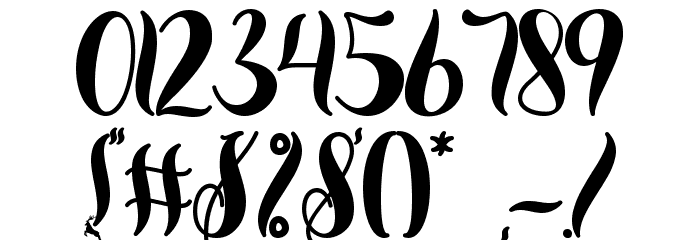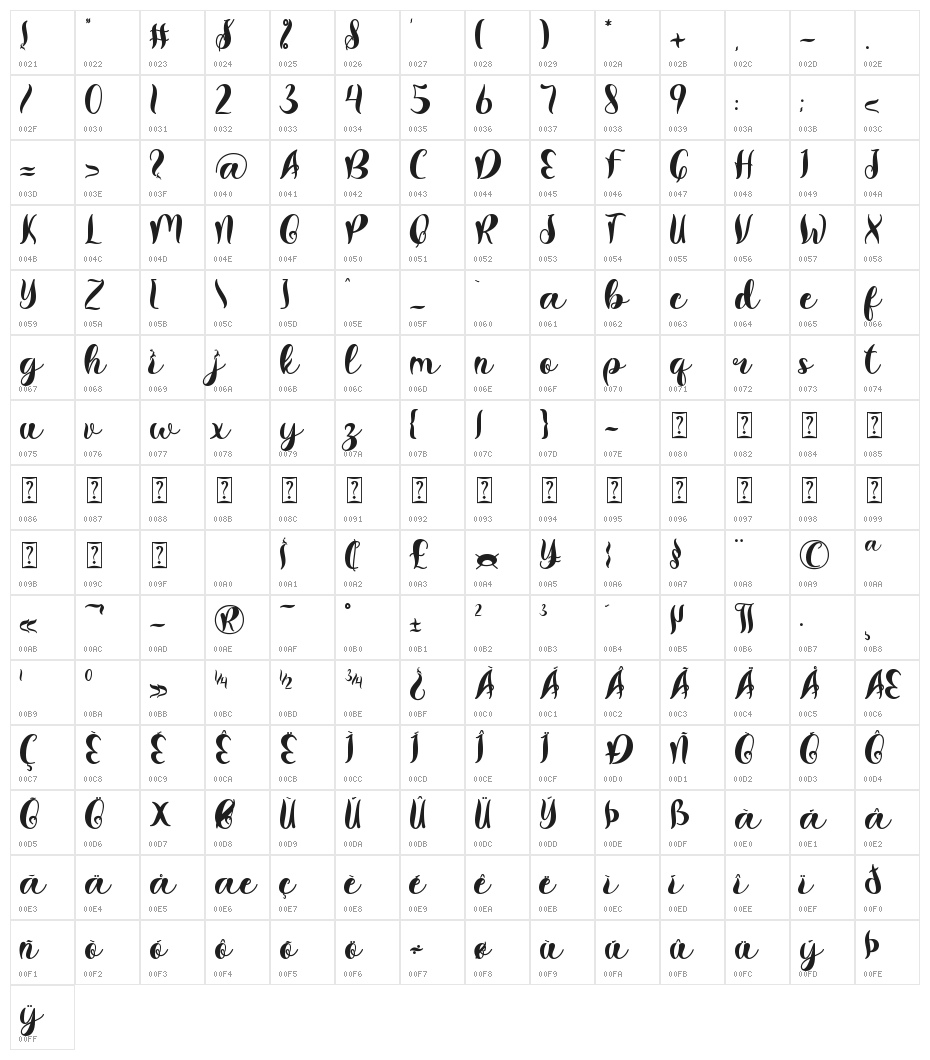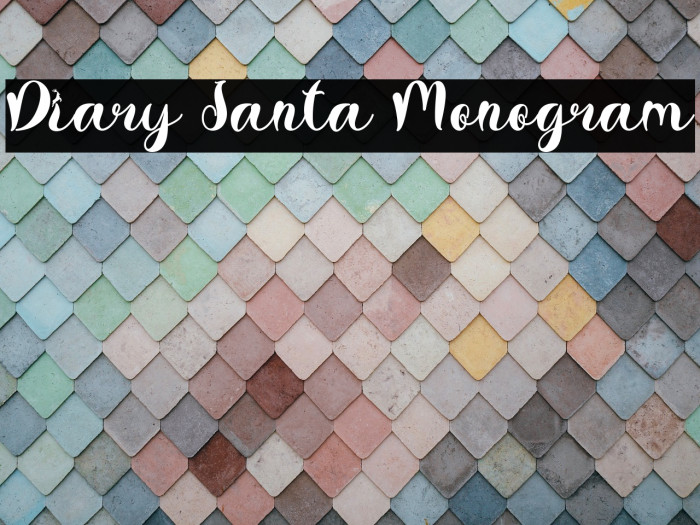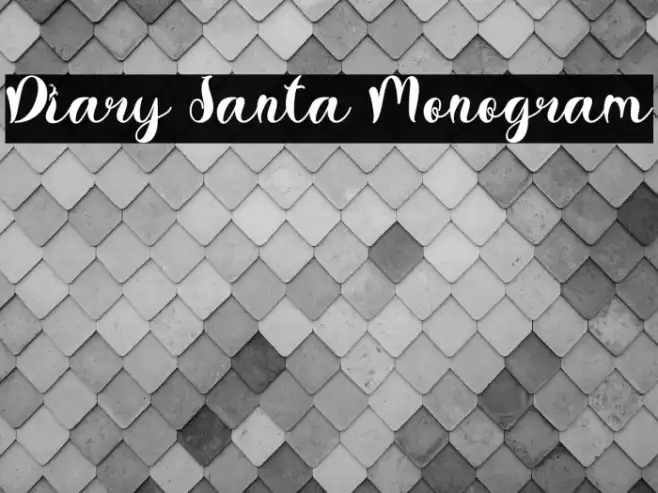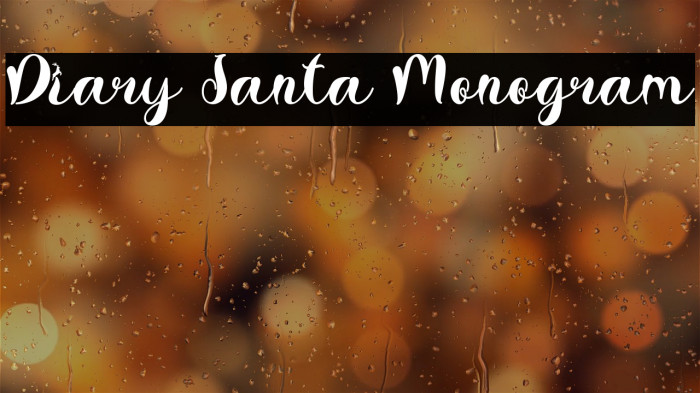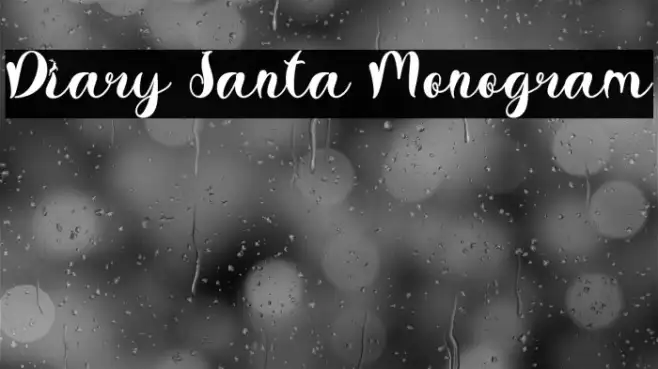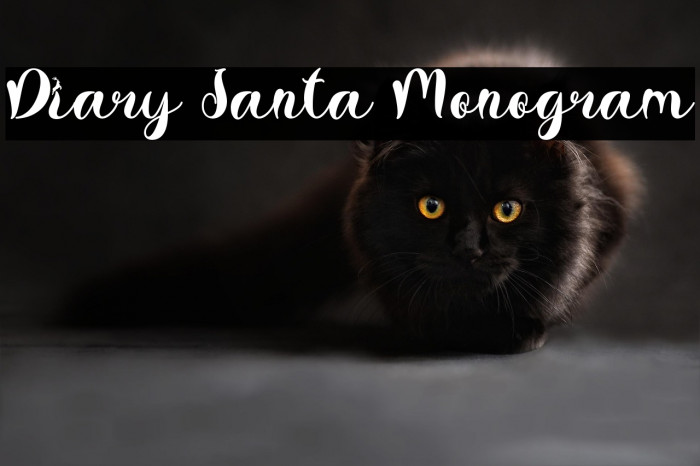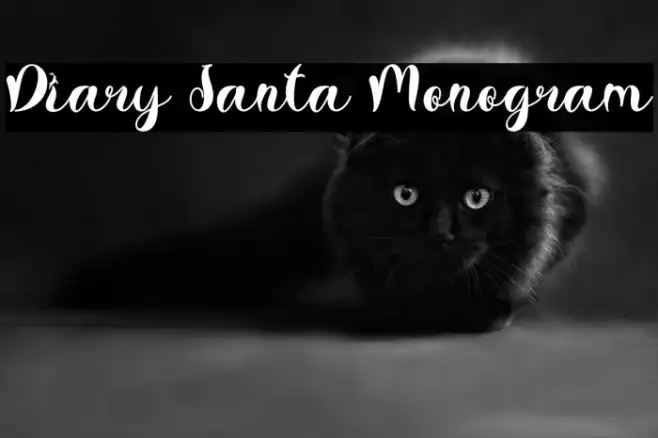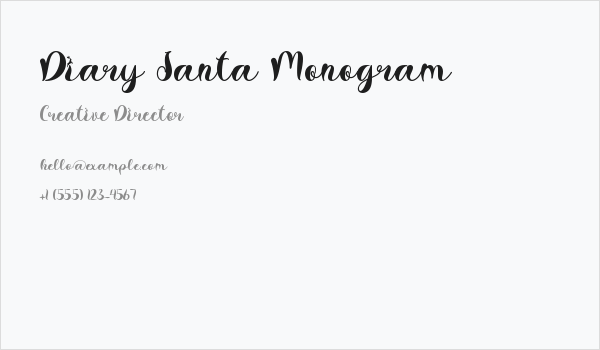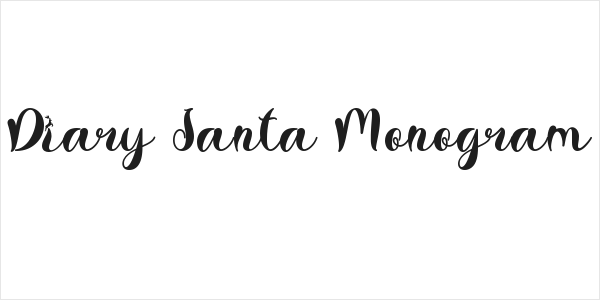
Diary Santa Monogram Font
Diary Santa Monogram Description
This font features a whimsical and flowing script style, characterized by its elegant curves and playful swashes. The uppercase letters are bold and dynamic, with unique flourishes that give each character a distinctive personality. The lowercase letters maintain a consistent style, offering a harmonious blend of curves and loops that enhance readability while retaining an artistic flair. The numerals are equally expressive, with a consistent stroke weight that complements the alphabet. Special characters are designed with the same attention to detail, ensuring a cohesive look across all glyphs. This font's overall appearance is both sophisticated and approachable, making it suitable for a variety of creative applications.
| Proposed Projects | Ideal for wedding invitations, greeting cards, branding projects, and decorative signage. |